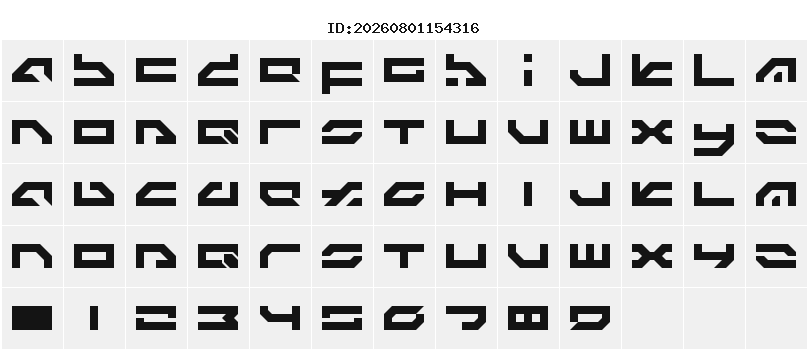
• Font Name: LDR#8
• Designer: Neoqueto
• Description: “LDR#8” was built with FontStruct “LDR#8” is based on “3LEGDR0ENZEPH4LOGR4FF” by “Neoqueto” (http://fontstruct.com/fontstructors/neoqueto)
LDR#8.ttf is a modern, elegant sans-serif font designed for ultimate readability and visual harmony. Perfect for branding, headlines, web design, and print materials.